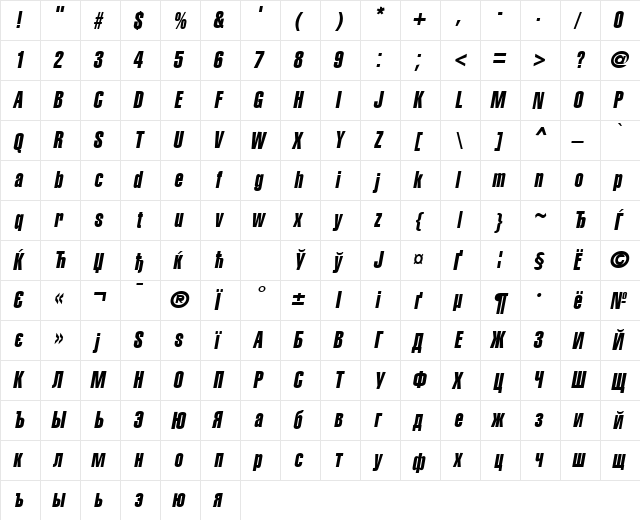
AGLettericaExtraCompressed Oblique
Design Context for AGLettericaExtraCompressed Typeface
AGLettericaExtraCompressed takes a measured approach to typography — its balanced proportions and neutral character make it a reliable workhorse for both digital and print work. The dynamic lean of this cut emphasises speed and emphasis in any layout.
Pro Tip: Try AGLettericaExtraCompressed for annotation and caption copy alongside an upright companion — the contrast in angle creates a dynamic but ordered typographic system.